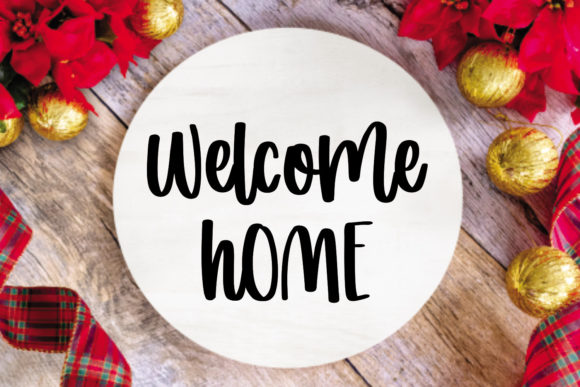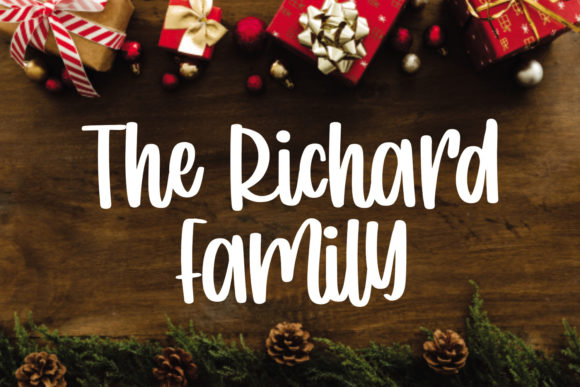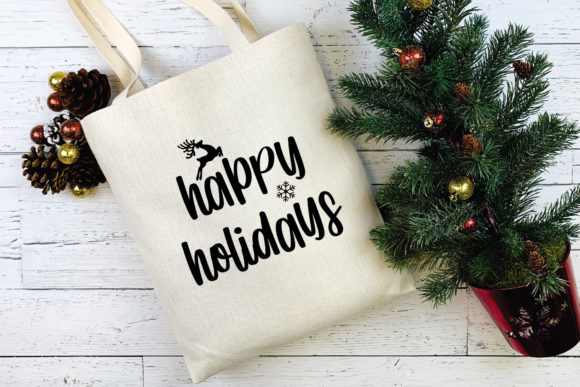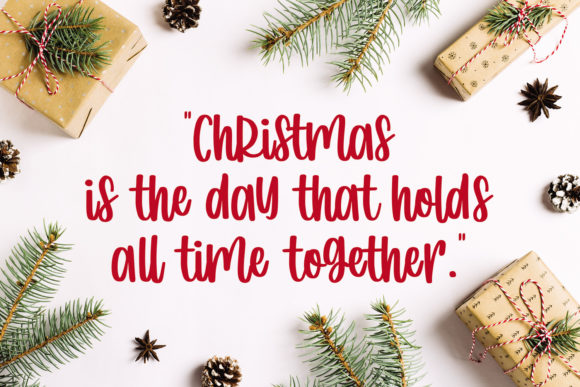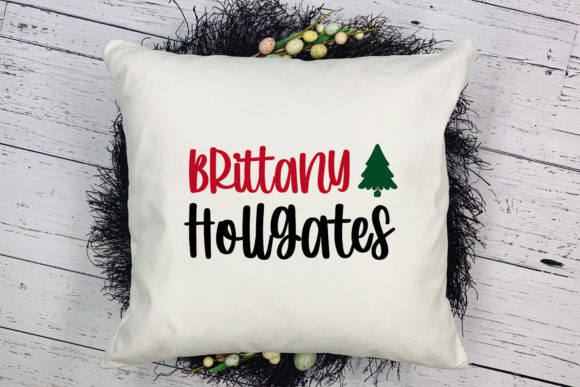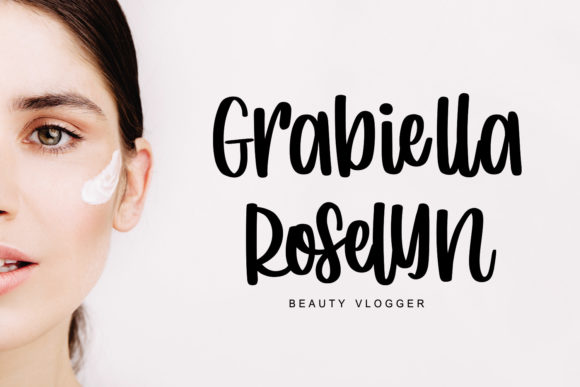
Christmas Cookies Font: The Sweetest Addition to Your Design Projects
Are you looking for a font that embodies the spirit of the holiday season? Look no further than the Christmas Cookies Font! This adorable handwritten font is sure to bring a touch of joy and festivity to any design project. In this article, we’ll dive into the world of Christmas Cookies Font and explore its features, benefits, and uses.
What is Christmas Cookies Font?
Christmas Cookies Font is a unique and beautiful handwritten font that is perfect for designers, crafters, and anyone looking to add a personal touch to their projects. This font is carefully crafted to resemble the sweet and delicate curves of handwritten script, making it a standout addition to any design.
Features of Christmas Cookies Font
- Cute and Beautiful: Christmas Cookies Font is a visually stunning font that is sure to capture the hearts of anyone who sees it. Its delicate curves and playful strokes make it a perfect fit for holiday-themed designs.
- Handwritten: This font is carefully crafted to resemble handwritten script, giving it a personal and unique touch.
- Unique: Christmas Cookies Font is a one-of-a-kind font that will set your designs apart from the rest.
- Joyful: This font exudes a sense of joy and festivity, making it perfect for holiday-themed designs.
Benefits of Using Christmas Cookies Font
So, why should you choose Christmas Cookies Font for your design projects? Here are just a few benefits:
- Adds a Personal Touch: This font adds a personal and unique touch to any design, making it perfect for crafters and small business owners.
- Perfect for Holiday Designs: Christmas Cookies Font is specifically designed for holiday-themed designs, making it a great choice for Christmas cards, gift tags, and more.
- Easy to Read: This font is carefully crafted to be easy to read, even at small sizes.
- Versatile: Christmas Cookies Font can be used for a wide range of design projects, from invitations to social media graphics.
Uses for Christmas Cookies Font
So, what can you use Christmas Cookies Font for? The possibilities are endless! Here are a few ideas:
- Holiday Cards: Use Christmas Cookies Font to create beautiful and unique holiday cards for friends and family.
- Gift Tags: Add a personal touch to your gifts with custom gift tags featuring Christmas Cookies Font.
- Invitations: Use this font to create festive and fun invitations for holiday parties and events.
- Social Media Graphics: Add a touch of holiday cheer to your social media graphics with Christmas Cookies Font.
- Crafting Projects: Use this font to add a personal touch to your crafting projects, such as scrapbooking and paper crafting.
Tips for Using Christmas Cookies Font
Here are a few tips for getting the most out of Christmas Cookies Font:
- Pair with Other Fonts: Experiment with pairing Christmas Cookies Font with other fonts to create a unique and eye-catching design.
- Use at Different Sizes: This font looks great at a variety of sizes, so don’t be afraid to experiment with different sizes to find the one that works best for your design.
- Add Decorations: Consider adding decorations, such as holly or snowflakes, to your design to make it even more festive.